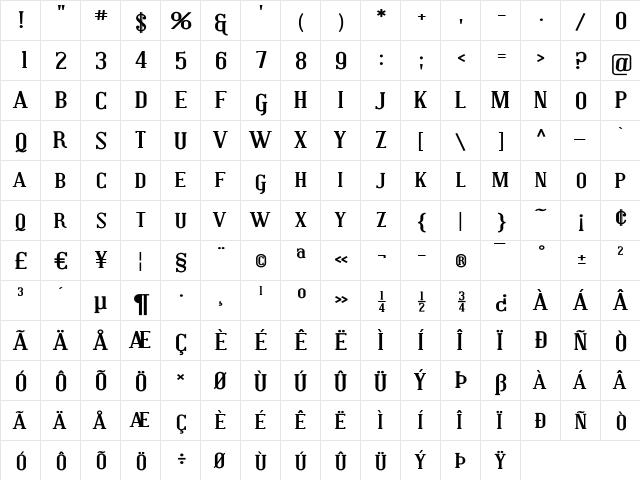
Covington SC Exp Bold
Design Context for Covington SC Exp Typeface
Covington SC Exp is a composed and adaptable typeface that performs quietly and consistently across a wide range of design contexts. Its bold stroke weight gives it real presence on the page.
Pro Tip: Pair Covington SC Exp with a font of contrasting weight or personality to build a more expressive typographic hierarchy.